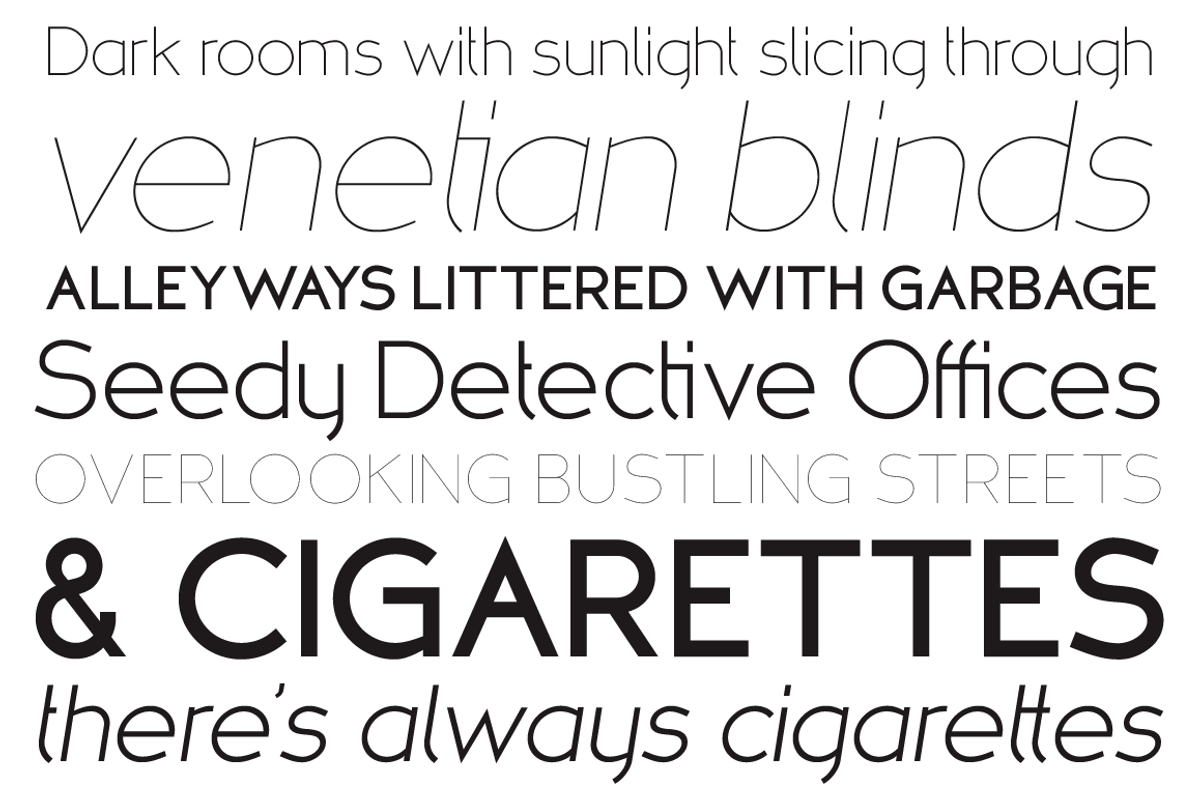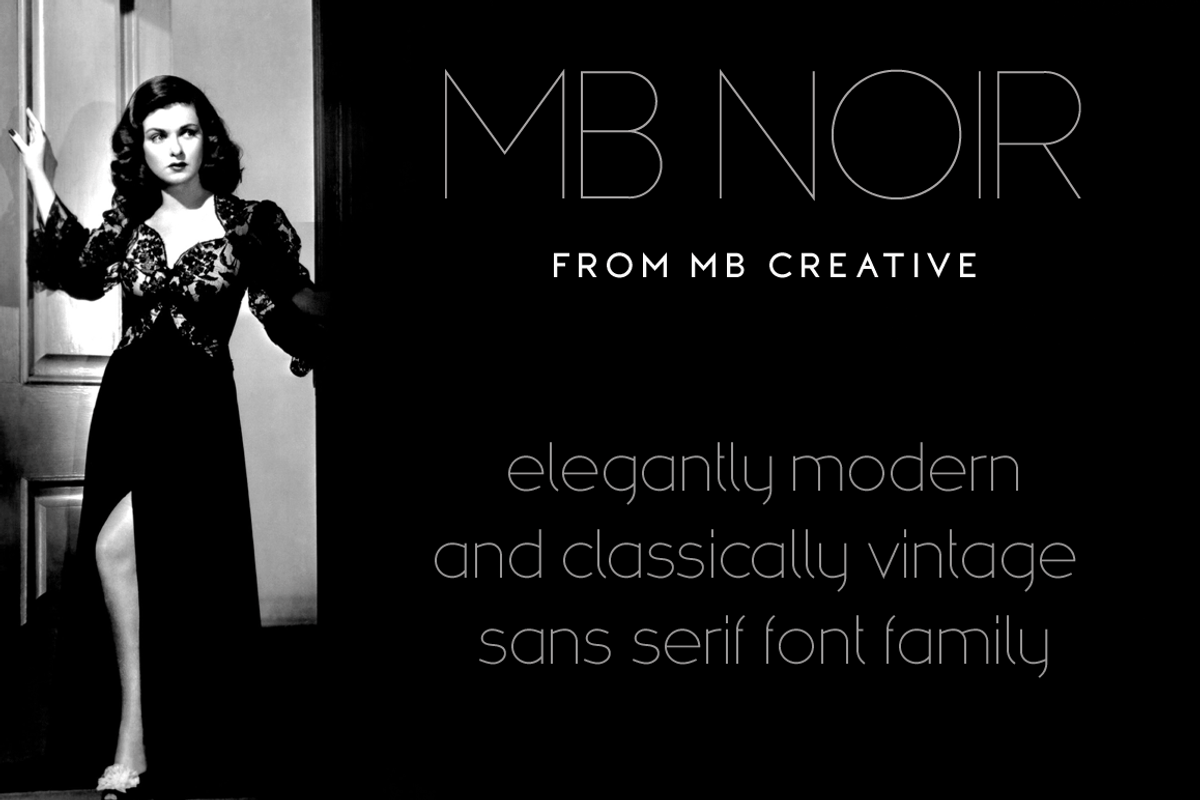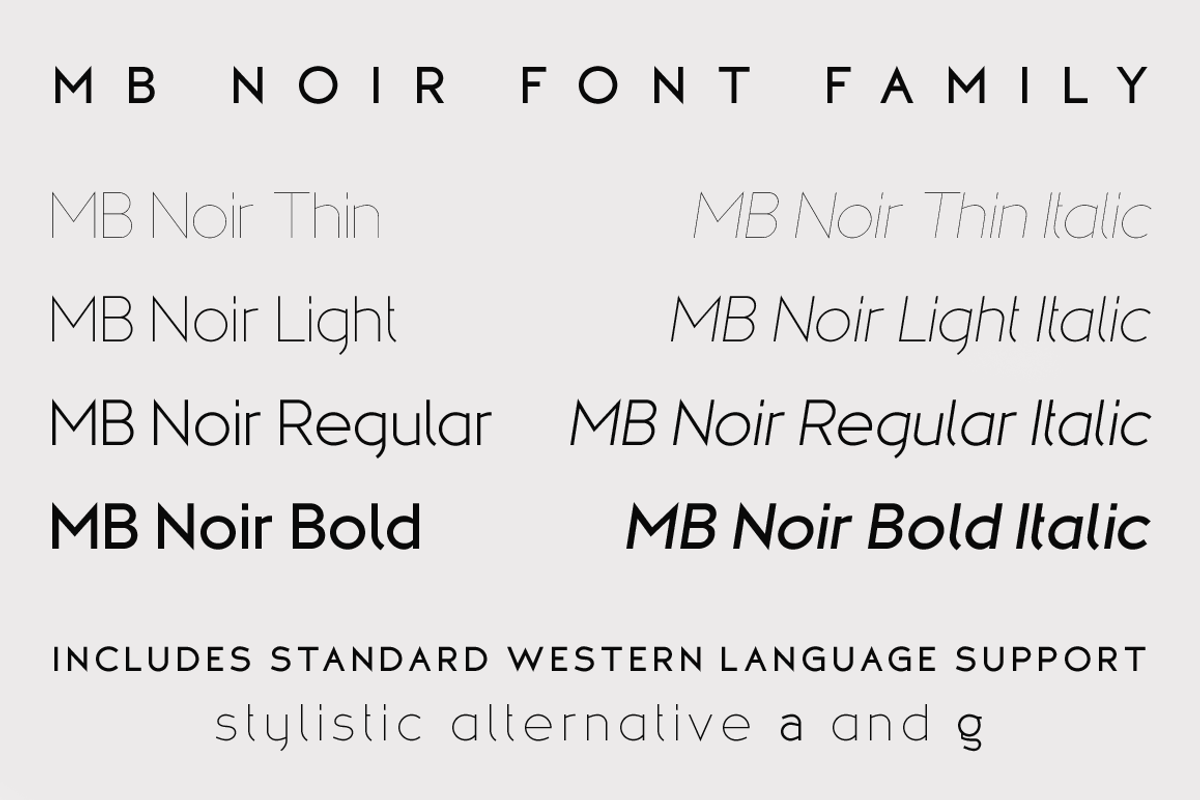
MB Noir
MB Noir by Ben Burford Fonts is a font selected for branding, posters, packaging, typography.
- MB NOIR is a 4 weight with italics font family that visually has different layers of style, at first glance its a modern clean geometry base
- MB NOIR Thin
- MB NOIR Thin Italic
- MB NOIR Light
- MB NOIR Light Italic
- MB NOIR Regular
- MB NOIR Italic
- MB NOIR Bold
- MB NOIR Bold Italic
Why MB Noir is worth a look
MB Noir by Ben Burford Fonts fits naturally into Branding, posters, packaging, typography.